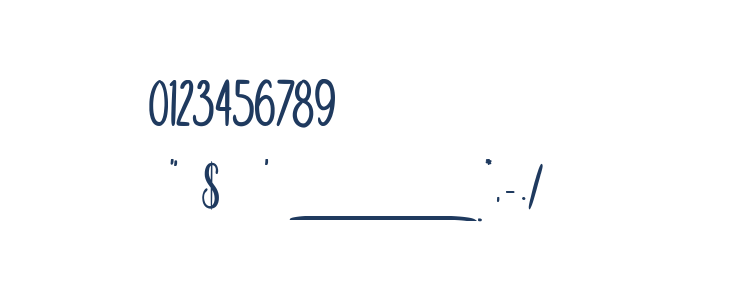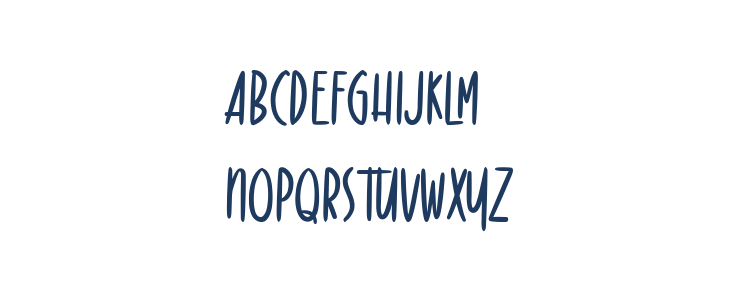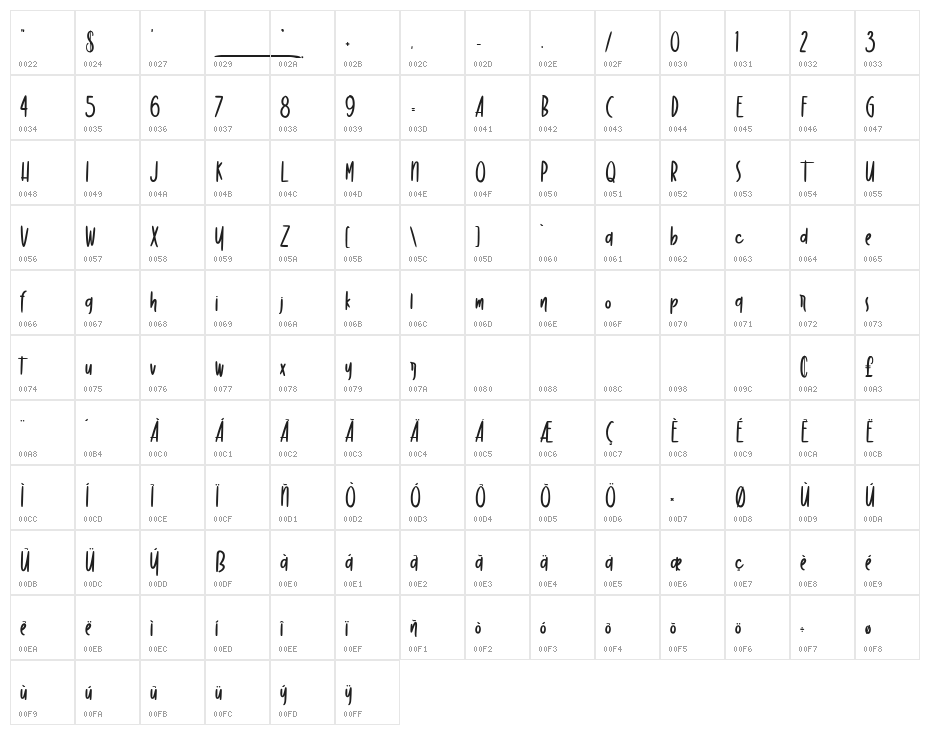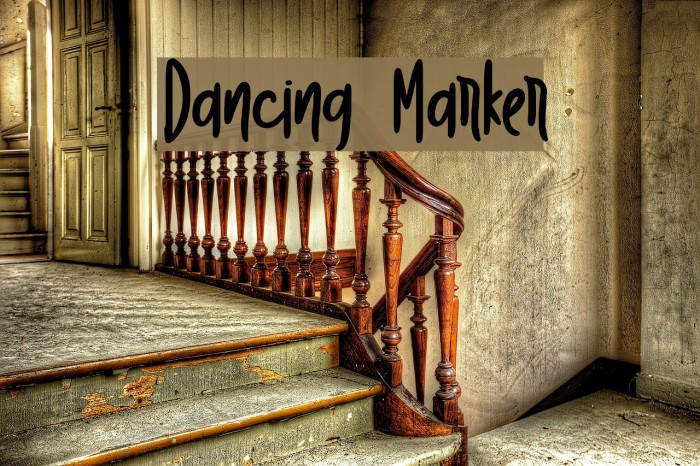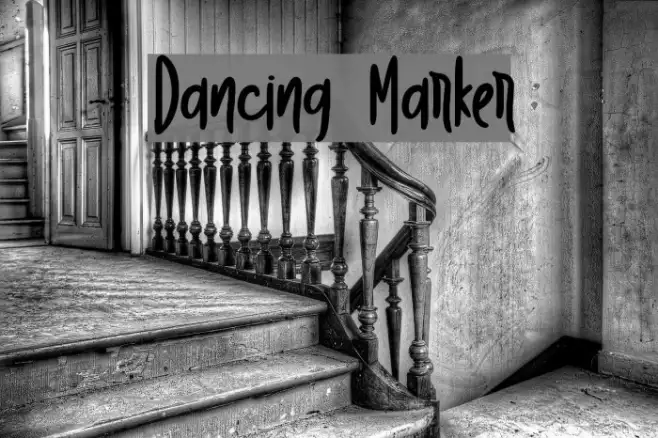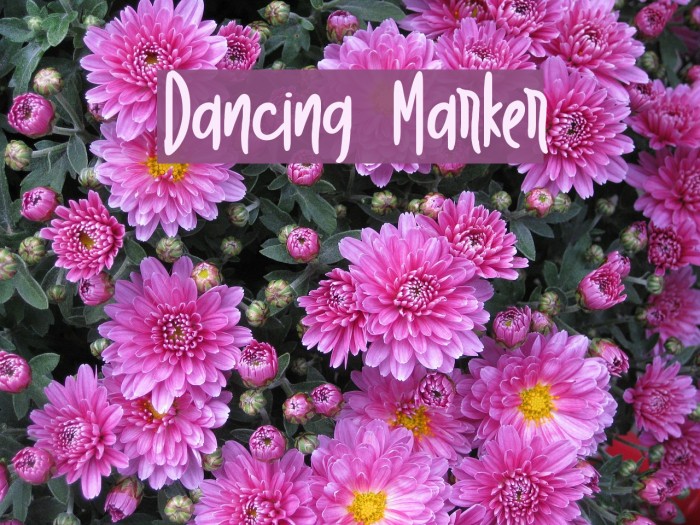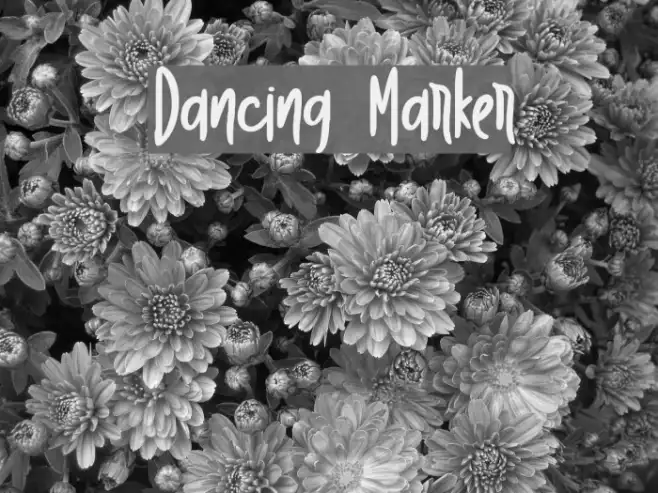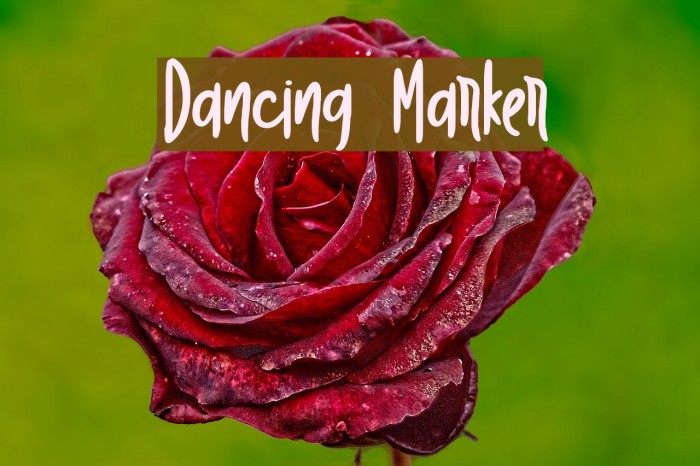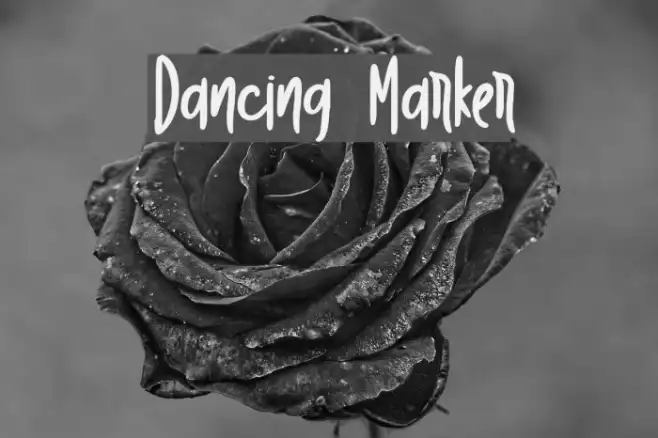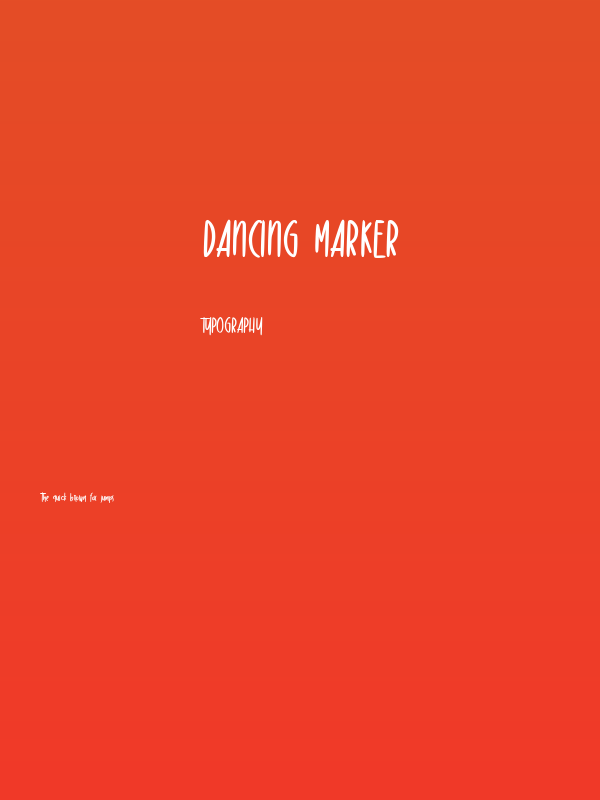
Dancing Marker Font
Dancing Marker Description
This playful and energetic font features a handwritten style with a lively and dynamic appearance. The letters are slightly irregular, giving it a casual and informal feel. The strokes are smooth and fluid, resembling the flow of a marker pen. The uppercase and lowercase letters maintain a consistent style, with rounded edges and a slight slant, adding to the font's whimsical charm. The numerals and special characters are equally expressive, maintaining the overall playful aesthetic. This font is ideal for projects that require a personal touch or a sense of fun and creativity.
| Proposed Projects | Ideal for greeting cards, children's books, playful branding, and creative posters. |